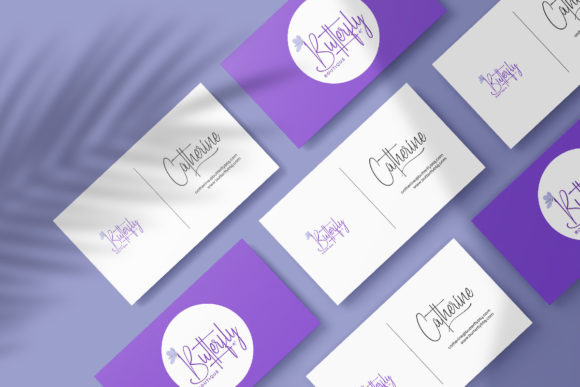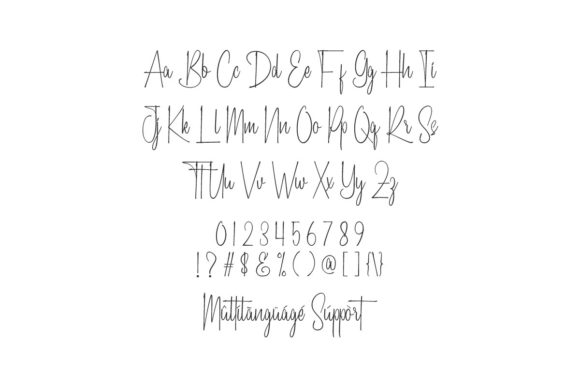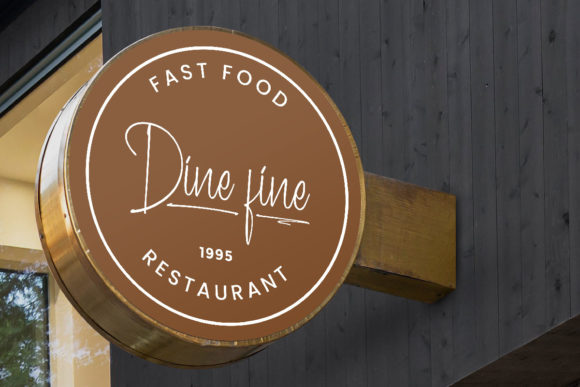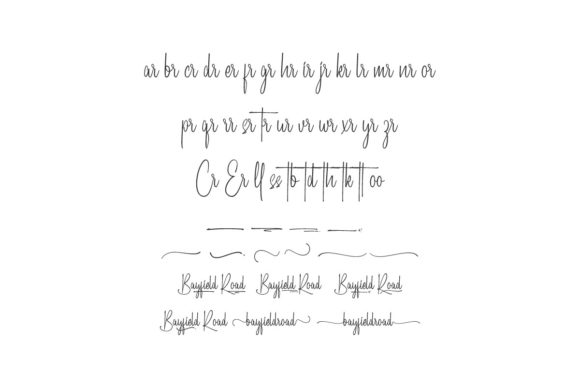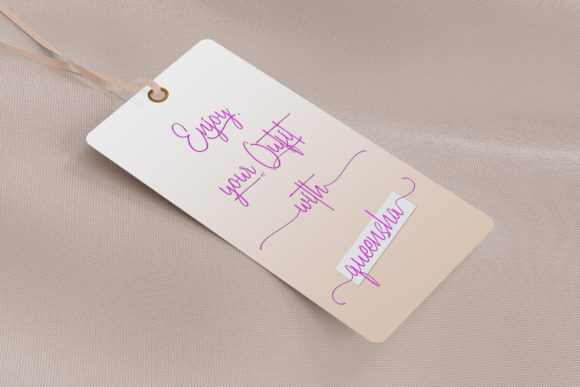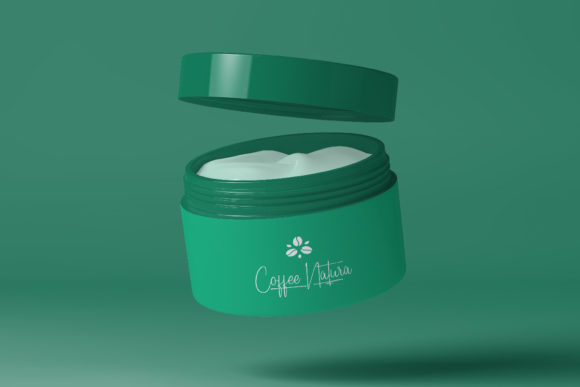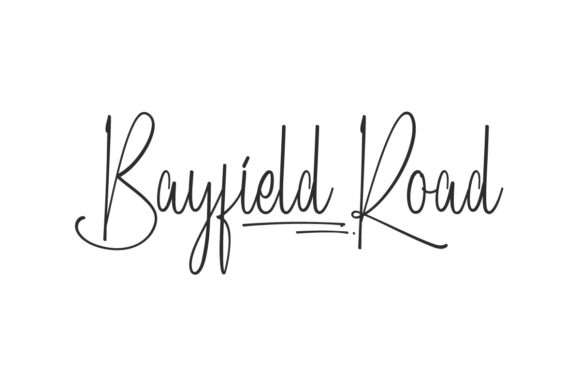
Introducing Bayfield Road Font: Elevate Your Designs with Elegance and Personality
In the world of typography, a font can make or break a design. For designers and crafters looking to add a touch of elegance and personality to their projects, Bayfield Road Font is an exceptional choice. This unique and elegant handwritten font is designed to bring a personalized style to a variety of designs, making it a versatile tool for anyone looking to elevate their creative work.
What Makes Bayfield Road Font Stand Out?
Bayfield Road Font is not just another addition to the vast library of fonts available today. It stands out for several reasons:
- Unique and Elegant Handwritten Style: Bayfield Road boasts a beautiful, handwritten aesthetic that adds a personal touch to any design. Its elegance ensures it can be used across various platforms and projects, from branding and advertising to personal stationery and crafts.
- Versatility: This font is designed to look great on a variety of designs. Whether you’re working on a sophisticated business card, a charming wedding invitation, or a bespoke craft project, Bayfield Road can adapt to your needs, providing a consistent and high-quality look.
- PUA Encoded for Easy Access: Understanding the needs of designers and crafters, Bayfield Road Font comes PUA (Private Use Area) encoded. This means that accessing all the glyphs and swashes is straightforward, allowing for greater flexibility and creativity in your designs. With PUA encoding, you can easily access and use the extended character set, including swashes, ligatures, and alternates, to add that extra special touch to your work.
Applications of Bayfield Road Font
The versatility of Bayfield Road Font makes it suitable for a wide range of applications. Here are some of the areas where this font truly shines:
- Branding and Logo Design: For businesses looking to establish a personal and elegant brand identity, Bayfield Road can be a valuable asset. Its unique style can help a brand stand out and convey its message in a sophisticated yet approachable manner.
- Stationery and Invitations: Whether it’s wedding invitations, birthday cards, or personal stationery, Bayfield Road adds a touch of elegance and warmth. Its handwritten nature brings a personal feel that is hard to replicate with more traditional fonts.
- Crafting and DIY Projects: For crafters and DIY enthusiasts, Bayfield Road Font can be used in a variety of projects, from scrapbooking and journaling to crafting personalized gifts and decorations. The font’s ability to add a personal touch can make any project stand out.
- Digital Content: In the digital realm, Bayfield Road can be used in blog headers, social media graphics, and website design to add a personal and elegant touch. Its readability and style make it an excellent choice for digital content creators looking to enhance their visual identity.
Tips for Using Bayfield Road Font Effectively
To make the most of Bayfield Road Font, consider the following tips:
- Pair it with Complementary Fonts: While Bayfield Road is elegant on its own, pairing it with complementary fonts can enhance its beauty. Choose fonts that complement its handwritten style to create visually appealing combinations.
- Experiment with Sizes and Colors: Don’t be afraid to experiment with different sizes and colors. Bayfield Road’s versatility means it can be used in various contexts, from large headings to smaller body text.
- Utilize Swashes and Glyphs: Take full advantage of the PUA encoding by exploring the font’s swashes and glyphs. These can add a unique touch to your designs and make them more personalized.
Bayfield Road Font is a beautiful addition to any designer’s or crafter’s toolkit. Its unique and elegant handwritten style, combined with its versatility and PUA encoding, makes it an excellent choice for a wide range of projects. Whether you’re looking to add a personal touch to your branding, create elegant stationery, or enhance your digital content, Bayfield Road Font is sure to impress. With its ease of use and the creative possibilities it offers, Bayfield Road can help elevate your designs and bring your creative visions to life.